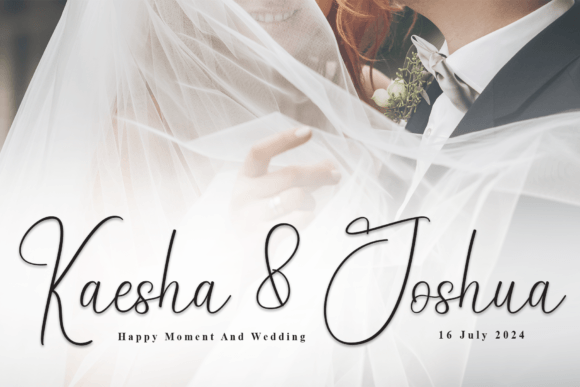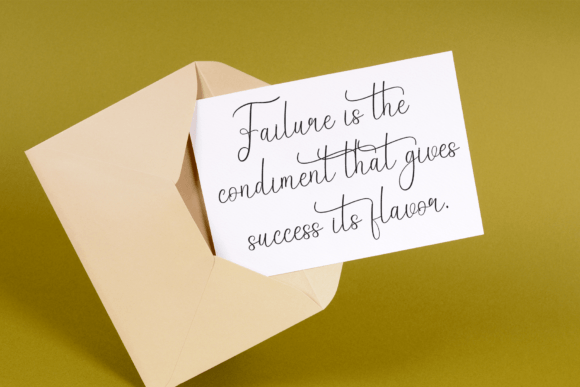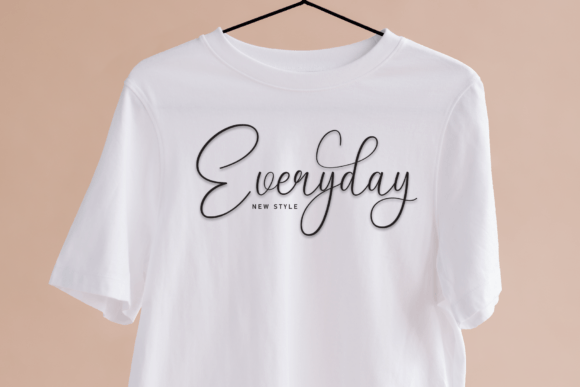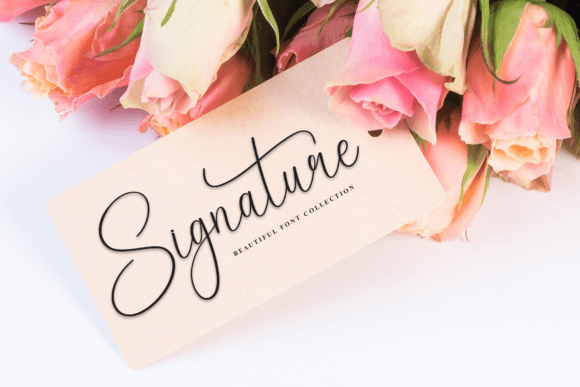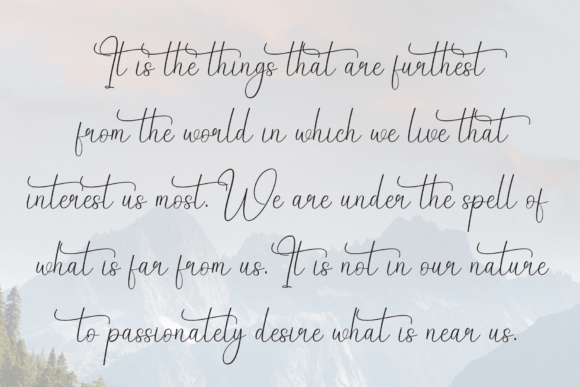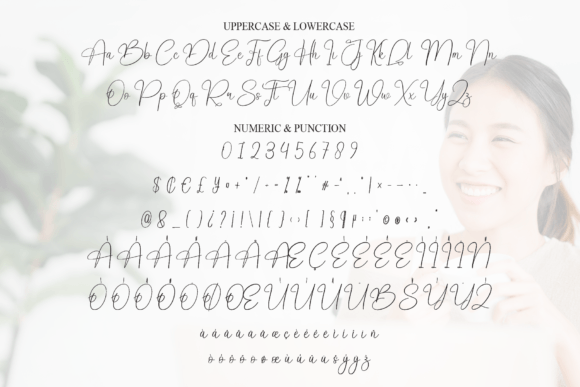
When Words Feel Like a Hug
There’s something special about scribbling down a message on a piece of paper, the pen gliding effortlessly across the page, leaving a trail of imperfections and character. It’s in these moments that we connect with the person on the receiving end, and the handwritten note becomes more than just a message – it’s a gesture of love and care.
For designers looking to infuse their projects with that same warmth and personality, Christy Smiley Font is the perfect solution. This casual handwritten font embodies the spirit of a relaxed and friendly vibe, making it ideal for personal projects, social media, and invitations. Its natural, flowing strokes bring an effortless, charming touch to any design, adding warmth and authenticity that’s hard to find in more formal fonts.
Christy Smiley Font Key Features
- Font Family: Christy Smiley is a unique, handwritten font designed for creative and personal projects.
- Unique Characteristics: This font features beautiful, flowing connections between letters, making it perfect for creative projects, such as invitations, quotes, and posters.
Designer Review: Christy Smiley Font
✨ I really enjoy the playful and modern feel of the Christy Smiley Font. The font’s rounded edges and cursive connections give it a friendly and approachable vibe that works well for titles, headings, and body text. The font’s x-height is relatively consistent, making it easy to read at various sizes. Additionally, the font’s open counters and high contrast ratio make it suitable for both digital and print applications.
✨ The Christy Smiley Font has a wide range of styles and weights, from Light to Black, making it versatile and adaptable to different design projects. The font’s OpenType features, such as ligatures and swashes, add a touch of sophistication and elegance to the design. Overall, the font is well-designed and easy to work with.
⚠️ One limitation of the Christy Smiley Font is its limited language support. The font only includes support for Latin-based languages, which may limit its use for projects that require languages with non-Latin scripts. Additionally, the font’s cursive connections can sometimes make it difficult to read at very small sizes.
Overall, I think the Christy Smiley Font is a great addition to any designer’s toolkit. Its playful and modern feel makes it perfect for projects that require a friendly and approachable tone. However, its limited language support and potential readability issues at small sizes are worth considering when choosing a font for your project.
- Playful and modern feel
- Rounded edges and cursive connections
- Wide range of styles and weights
- OpenType features, such as ligatures and swashes
- Limited language support (only Latin-based languages)
- Potential readability issues at small sizes
Use the Christy Smiley Font to add a touch of whimsy and personality to your designs.